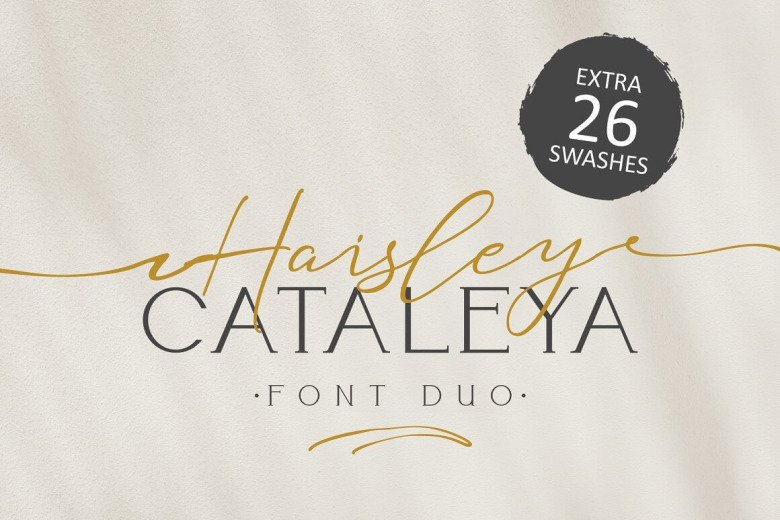
Haisley Cataleya Font
Haisley Cataleya is a stunning and comprehensive duo font (script and serif), ideal for giving your projects a branded but friendly feel. The two included styles can be combined together perfectly but are also beautiful on their own.